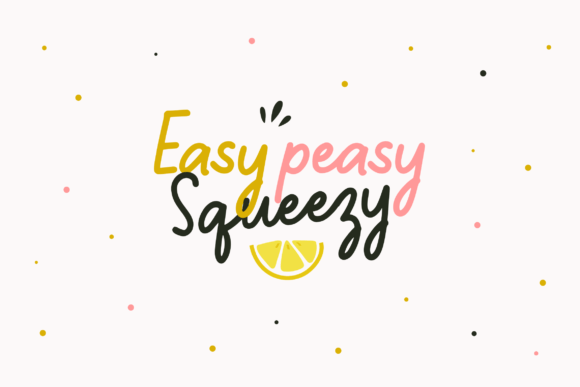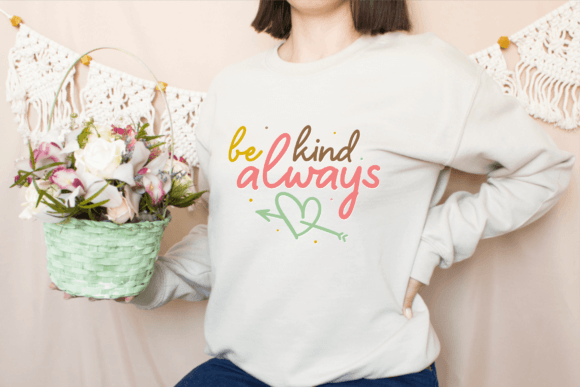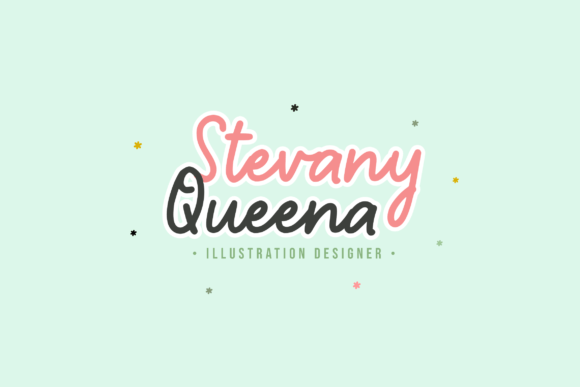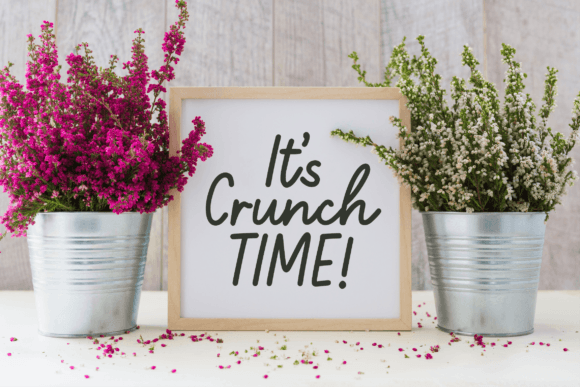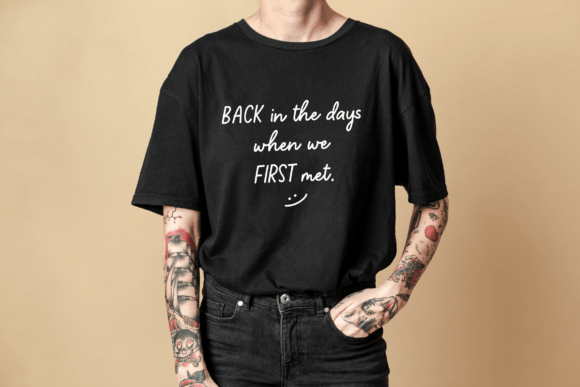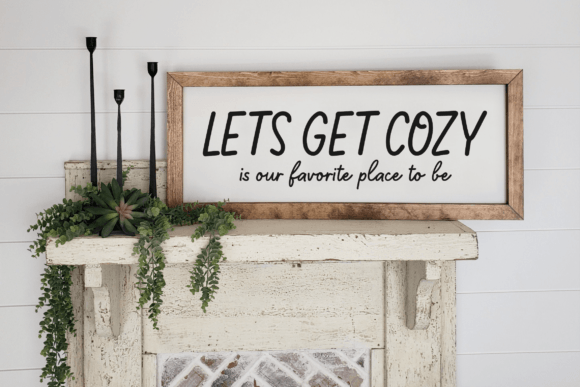
Introduction to Lemonmint Font
Remember that moment when you stumbled upon a beautiful, handwritten font that made your design come alive? For many designers, that moment is what drives their passion for creating stunning visuals. And for those who have been searching for the perfect script font, we’re excited to introduce you to the Lemonmint Font – a cute, high-quality handwritten font that’s about to revolutionize your design projects.
Whether you’re working on a product packaging design, a branding project, or just need a font to express words above a transparent background, the Lemonmint Font is an excellent addition to your design resource library. Its unique charm and versatility make it a valuable asset for any creative project, and the best part? It’s available for free download, making it accessible to designers of all levels.
Key Features of Lemonmint Font
- The Lemonmint Font is a high-quality, free design resource ideal for creative projects.
- The font size is optimized for clear readability, with a recommended size range of 12-24 points.
- Features a high-resolution design (300 DPI) for crisp and clean display on various screens and print materials.
- Lemonmint Font is designed to be versatile and adaptable, suitable for use in logos, headings, and body text.
Honest Review: Lemonmint Font
I recently had the chance to work with the Lemonmint Font and I must say, it’s been a game-changer for my design projects. This beautiful script font is a great addition to any designer’s toolbox.
What works well: ✨ The Lemonmint Font is incredibly versatile, making it perfect for creative projects that require a touch of elegance. Its high-quality design and smooth curves add a level of sophistication to any text, whether it’s a headline or body copy.
However, there are a few limitations to keep in mind: ⚠️ The font only comes in a few weights, which may not be ideal for projects that require a lot of font variety. Additionally, the font may not be suitable for small text sizes, as the lines can become quite thin.
Overall, I’m thoroughly impressed with the Lemonmint Font. Its high quality and versatility make it an excellent addition to any design resource library. While there are some limitations, I believe the benefits far outweigh the drawbacks, making it a great choice for designers looking for a reliable and stylish font.
The Lemonmint Font is ideal for creative projects that require a unique and high-quality design resource. It is commonly used in branding, marketing materials, and digital design. The font’s transparent background makes it perfect for use with images and graphics.